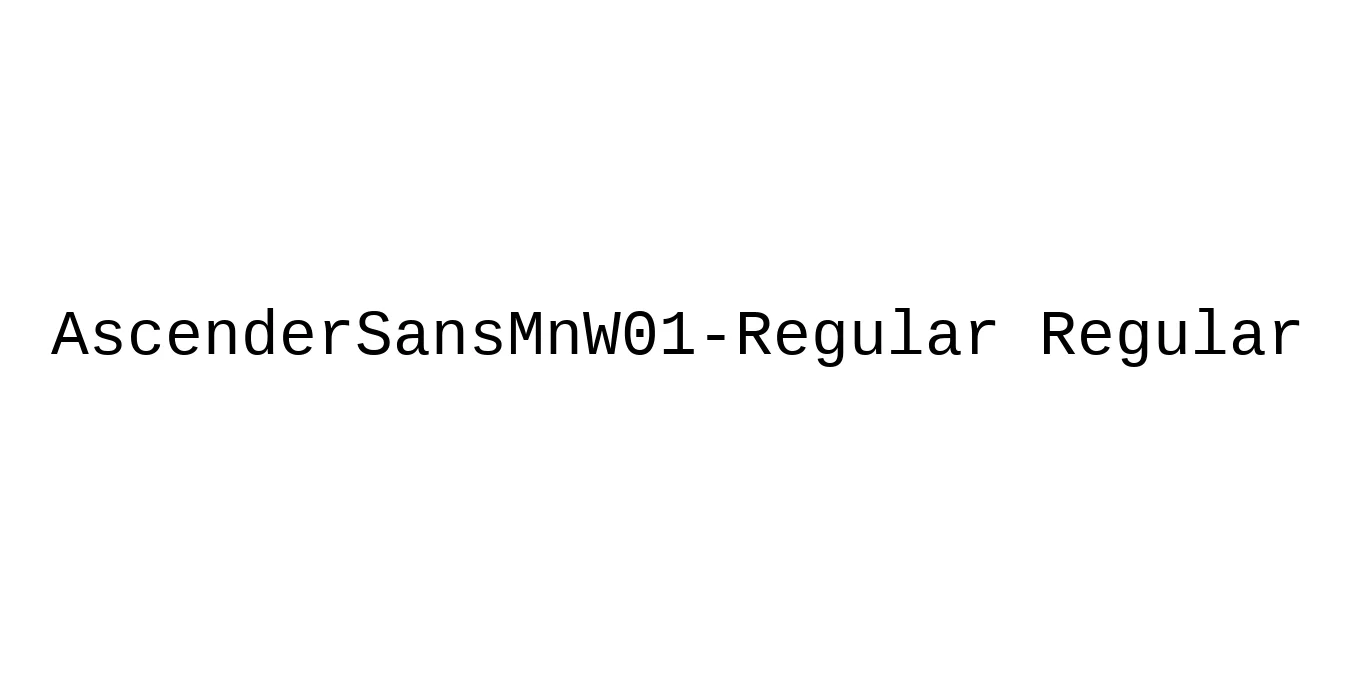
AscenderSansMnW01-Regular Regular
Designed by Steve Matteson
AscenderSansMnW01-Regular is a highly functional humanist sans-serif typeface engineered specifically for superior on-screen legibility and versatile print applications. Developed by the experts at Ascender Corporation, this font family was designed to address the needs of software developers and graphic designers who require a neutral yet sophisticated aesthetic that performs consistently across various digital resolutions and platforms.
The typeface is characterized by its open counters, large x-height, and distinct character shapes, which minimize eye fatigue during extended reading sessions. As a cornerstone of the Matteson design portfolio, it bridges the gap between classic typographic principles and modern digital requirements, making it an essential tool for creating clean, professional, and accessible user interfaces.
AscenderSansMnW01-Regular Best Uses
Optimized for mobile apps, dashboards, and operating system menus.
Excellent for body copy and navigation links where clarity is paramount.
Professional enough for business reports, presentations, and internal documentation.
Perfect for e-books and long-form articles on screens of all sizes.